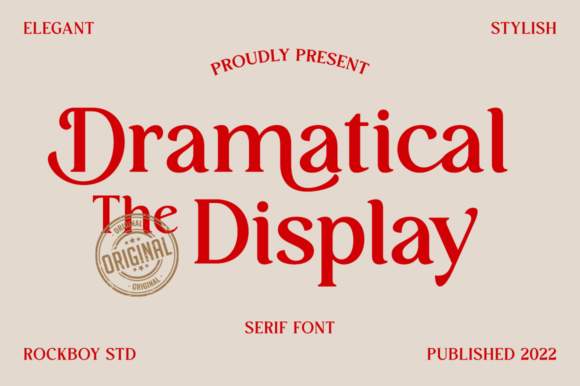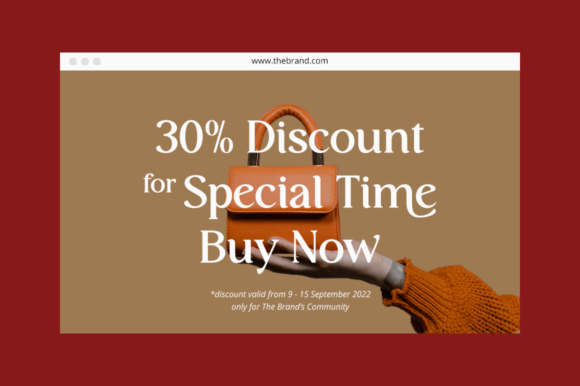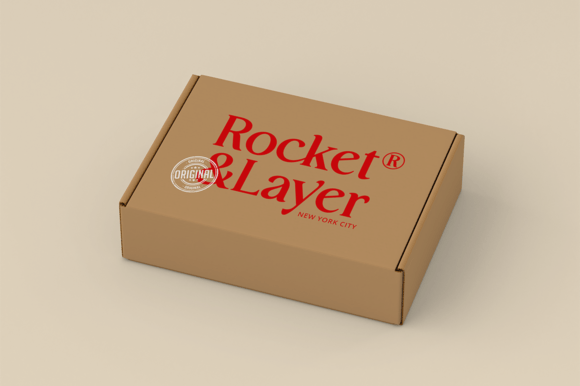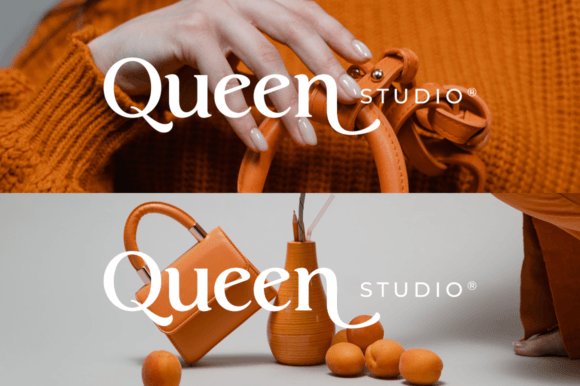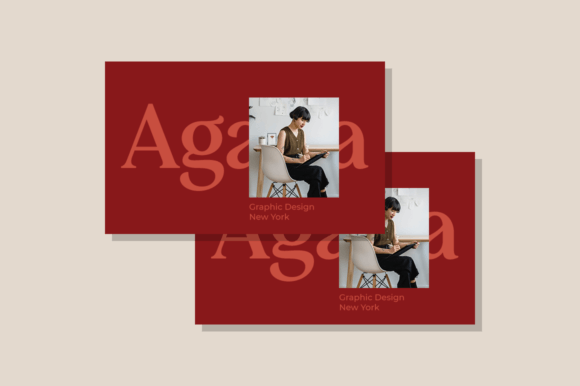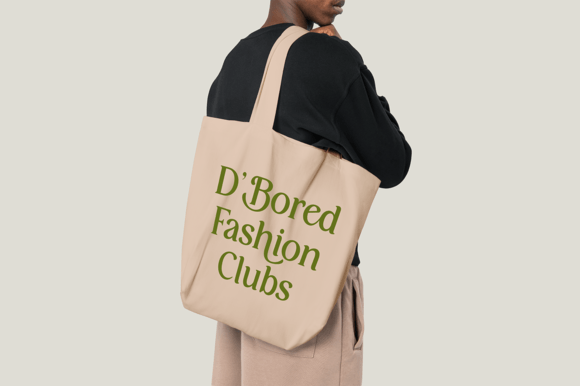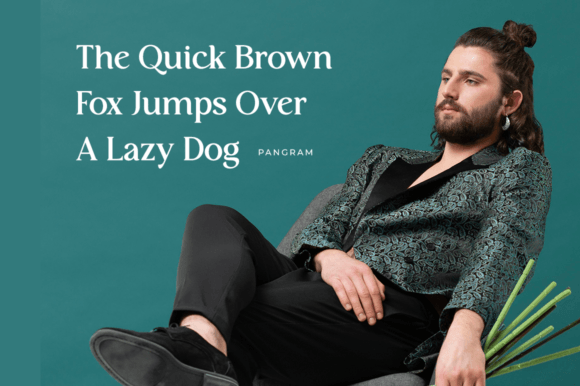
The Perfect Blend of Elegance and Versatility
Have you ever been stuck on a design project, searching for that perfect font to bring your vision to life? It’s a feeling we’ve all been through, and it’s what makes discovering the right font so exhilarating. For me, it was the moment I stumbled upon Dramatical the Display Font – a font that has since become my go-to for all sorts of designs.
Dramatical the Display Font is a masterfully crafted serif font, characterized by its thin lettering and distinct style. Its clean and neat aesthetic makes it suitable for a wide range of designs, from elegant invitations to modern web pages. As a designer, having access to a versatile font like this can be a game-changer, allowing you to experiment with different styles and ideas without being limited by a single, restrictive font.
Dramatical Display Font Key Features
- Unique Characteristics: This font features a dramatic, high-contrast design with bold lines and geometric shapes, making it perfect for use in titles, headings, and other display typography.
Dramatical the Display Font Review
I must say, I was immediately drawn to the ornate and elegant feel of Dramatical the Display Font. ✨ Its unique blend of modern and vintage elements makes it perfect for those looking to add a touch of sophistication to their designs. The font’s intricate details and flourishes are reminiscent of classic typography, while its clean lines and geometric shapes keep it feeling fresh and contemporary.
One of the things that really stands out about Dramatical is its versatility. ✨ It’s equally at home in digital applications, such as website headers and social media graphics, as it is in print materials, like posters and business cards. The font’s many weights and styles also make it easy to customize and adapt to different design needs.
- ⚠️ The font’s ornate design can sometimes make it difficult to read, particularly in smaller font sizes.
- ⚠️ The font’s many styles and weights can be overwhelming to navigate, especially for designers who are new to the font.
- ⚠️ The font may not be suitable for projects that require a more minimalist or straightforward aesthetic.
Overall, I think Dramatical the Display Font is a great choice for designers who want to add some visual interest and sophistication to their work. While it may have some limitations, its unique design and versatility make it a valuable addition to any design toolbox.
Tips for Getting the Most Out of Dramatical Display Font
Use Dramatical Display Font for headings and titles to add a touch of elegance and sophistication to your designs.
Pair it with a clean and simple font for body text to create a visually appealing contrast.
Experiment with different font sizes and styles to create a dramatic effect.